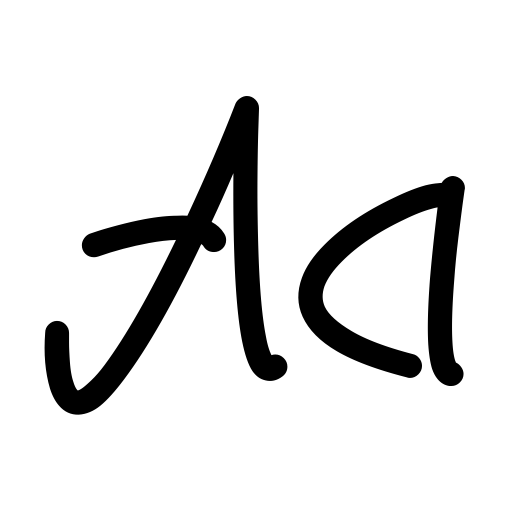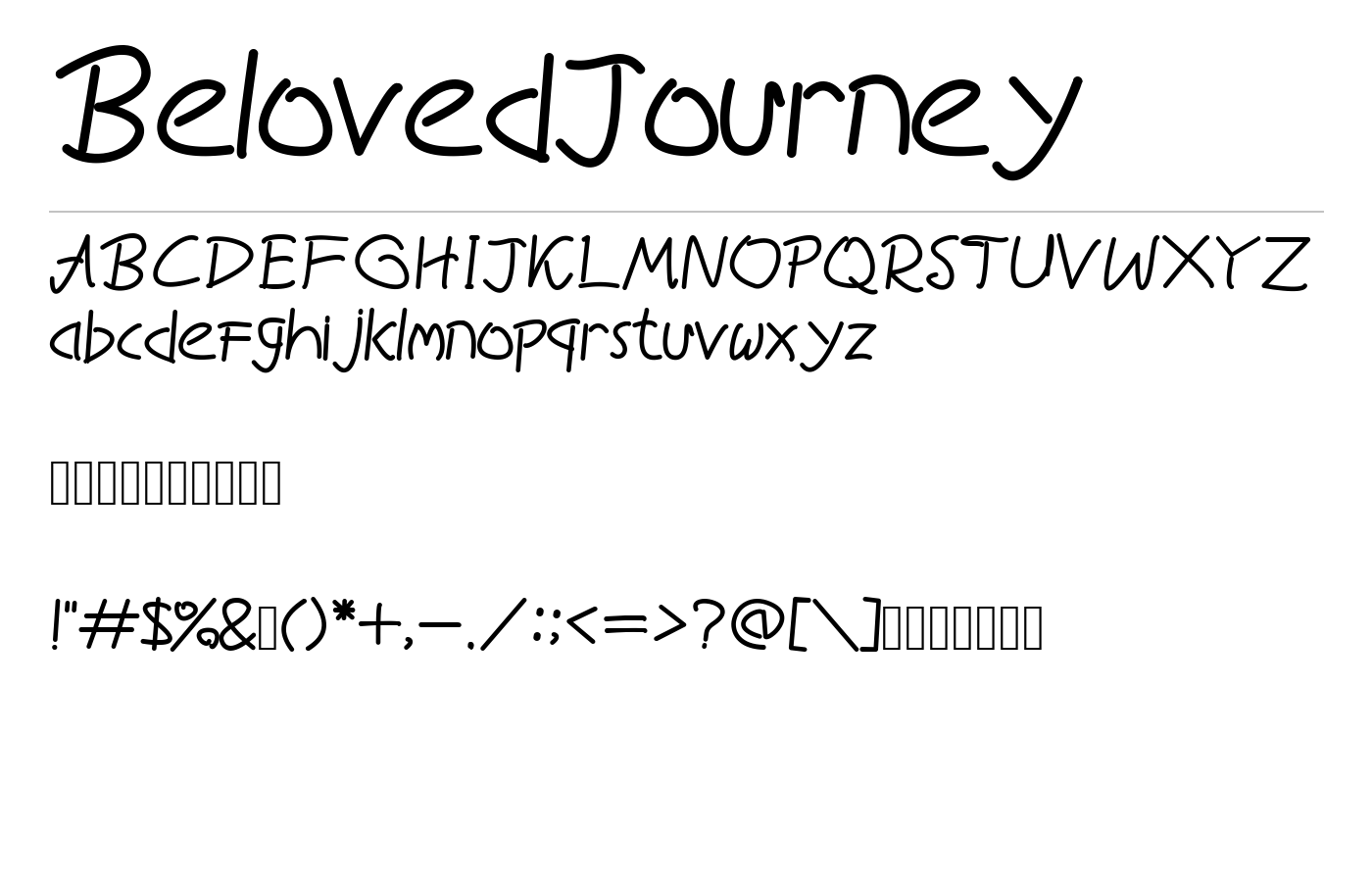
BelovedJourney is a casual, handwritten sans serif font with a friendly and approachable style. Its script-like, slightly irregular letterforms convey warmth and personality, making it ideal for personal projects, informal branding, and creative designs that seek a relaxed, authentic feel. This font works well in logos, invitations, and headlines where a human, playful touch is desired.
BelovedJourney Font
About BelovedJourney Font